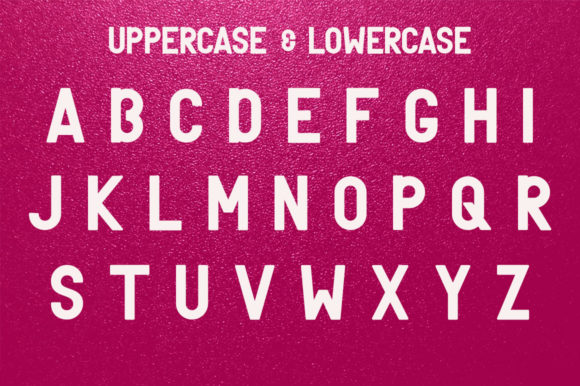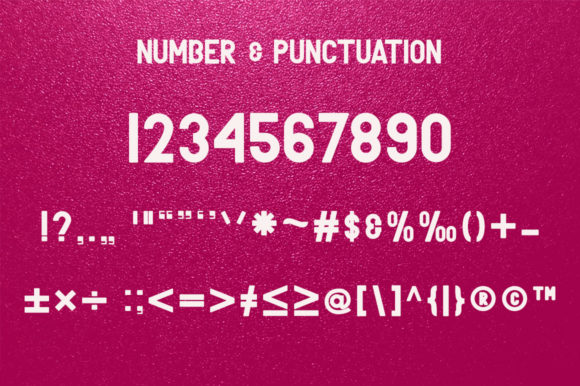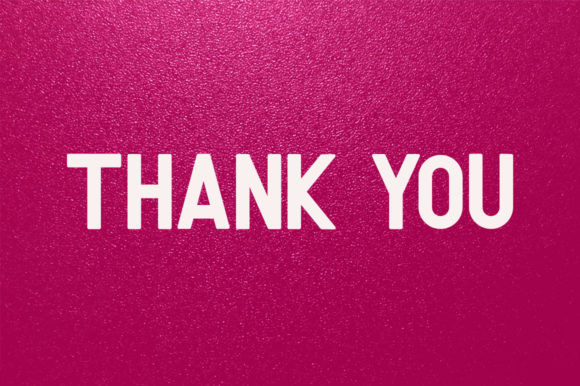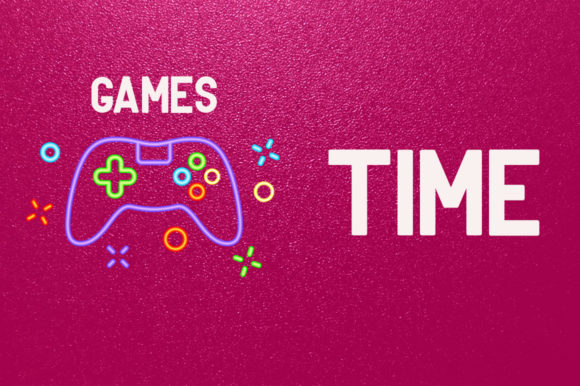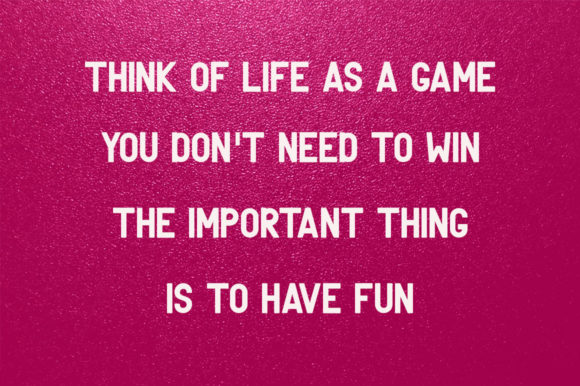
Discover the Timeless Charm of Delicia Font
Have you ever found yourself browsing through a vintage shop, and suddenly, a beautiful old sign catches your eye? The way the words seem to dance on the page, with a mix of elegance and playfulness that’s impossible to ignore. That’s the magic of a well-designed font, and it’s exactly what Delicia Font brings to the table.
Delicia Font is a display font that’s equal parts friendly and elegant, making it perfect for a wide range of creative projects. Whether you’re designing a wedding invitation, a children’s book, or a social media campaign, Delicia Font is sure to add a touch of timeless class to your work. As a designer, you know how valuable a versatile font can be, and Delicia Font is no exception.
Delicia Font Key Features
- Font Family: Delicia is a modern sans-serif font family with 6 weights (Thin, Light, Regular, Medium, Bold, and Black).
- Character Set: Delicia Font includes a comprehensive character set that supports Latin, Cyrillic, and Greek alphabets, as well as a wide range of punctuation and symbols.
- Unique Characteristics: Delicia Font is known for its clean and minimalist design, making it an ideal choice for digital and print media, including signage, advertising, and corporate branding.
Delicia Font Review
Overall, I was quite excited to dive into the Delicia Font. Its modern and elegant design had me expecting a lot, and I was not disappointed. Here are the things that worked well for me: ✨
- The font is highly legible, making it perfect for body text or headings.
- Delicia Font has a wide range of weights, from light to bold, allowing for great flexibility in design.
- The font’s modern design is perfect for modern and sleek projects.
However, I did notice a few limitations: ⚠️
- The font’s italic and oblique styles could be improved for better readability.
- Delicia Font might not be the best choice for projects requiring a more traditional or classic look.
Overall, I’m impressed with the Delicia Font. It’s a solid choice for modern design projects and has a lot to offer in terms of flexibility and legibility. However, it may not be the best fit for every project. I would recommend it for those looking for a modern, elegant font with a wide range of weights.
Tips for Getting the Most Out of Delicia Font
Delicia Font is a versatile font that can be used in a variety of contexts. To get the most out of it, try the following:
- Use it for headings and titles to add a touch of elegance.
- Combine it with other fonts to create a unique and interesting typography.
- Experiment with different font sizes and colors to find the perfect balance.
Delicia Font is commonly used for:
- Use Delicia Font for headings and subheadings to add a touch of elegance and sophistication.
- Combine Delicia Font with playful illustrations and graphics to create a whimsical atmosphere.
- Pair Delicia Font with a clean and minimalistic design to highlight the recipes and ingredients.
- Use bright and bold colors to contrast with the elegant Delicia Font.
- Add plenty of white space to create a clean and minimalist design.
- Use illustrations and graphics to break up the text and add visual interest.
- Use Delicia Font for the main invitation text to create a sense of grandeur and luxury.
- Combine Delicia Font with metallic accents and gold foil stamping to add a touch of sophistication.
- Pair Delicia Font with a classic and traditional design to create a timeless and elegant look.
- Use a classic color palette such as ivory, white, and gold to create a timeless and elegant look.
- Add plenty of texture and depth to create a luxurious and sophisticated atmosphere.
- Use metallic accents
Compared to Delicia Font, Montserrat has a more edgy and urban feel, making it ideal for tech startups, urban fashion brands, and modern websites.
Delicia Font Creative Projects
Project 1: Whimsical Food Blog
Create a whimsical food blog that showcases your favorite recipes and cooking techniques.
How to use Delicia Font:
Project 2: Luxury Wedding Invitation
Create a luxurious wedding invitation that sets the tone for a sophisticated and elegant wedding.
How to use Delicia Font: